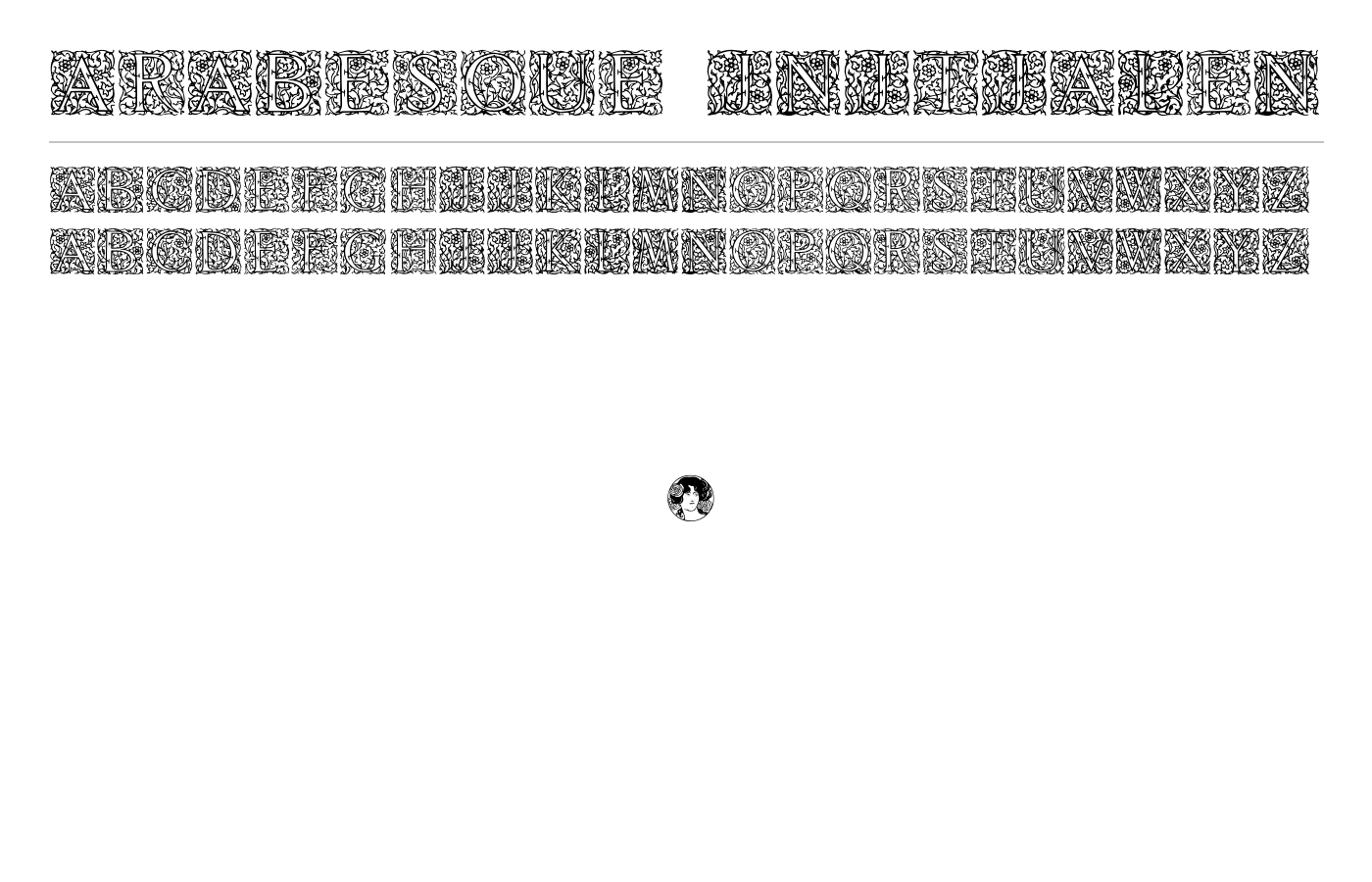
Arabesque Initialen is a decorative serif font characterized by highly intricate, ornamental patterns filling each uppercase letter, giving it a detailed, vintage appearance. Its elaborate, artistic style evokes a sense of elegance and tradition, making it ideal for luxurious packaging, classic branding, invitations, or decorative headlines where a striking flourish is desired. This font works best in display sizes where its complex design can be appreciated without compromising readability.
Arabesque Initialen Font
About Arabesque Initialen Font
| Font family | Arabesque Initialen Font |
| Designer | Dieter Steffmann |